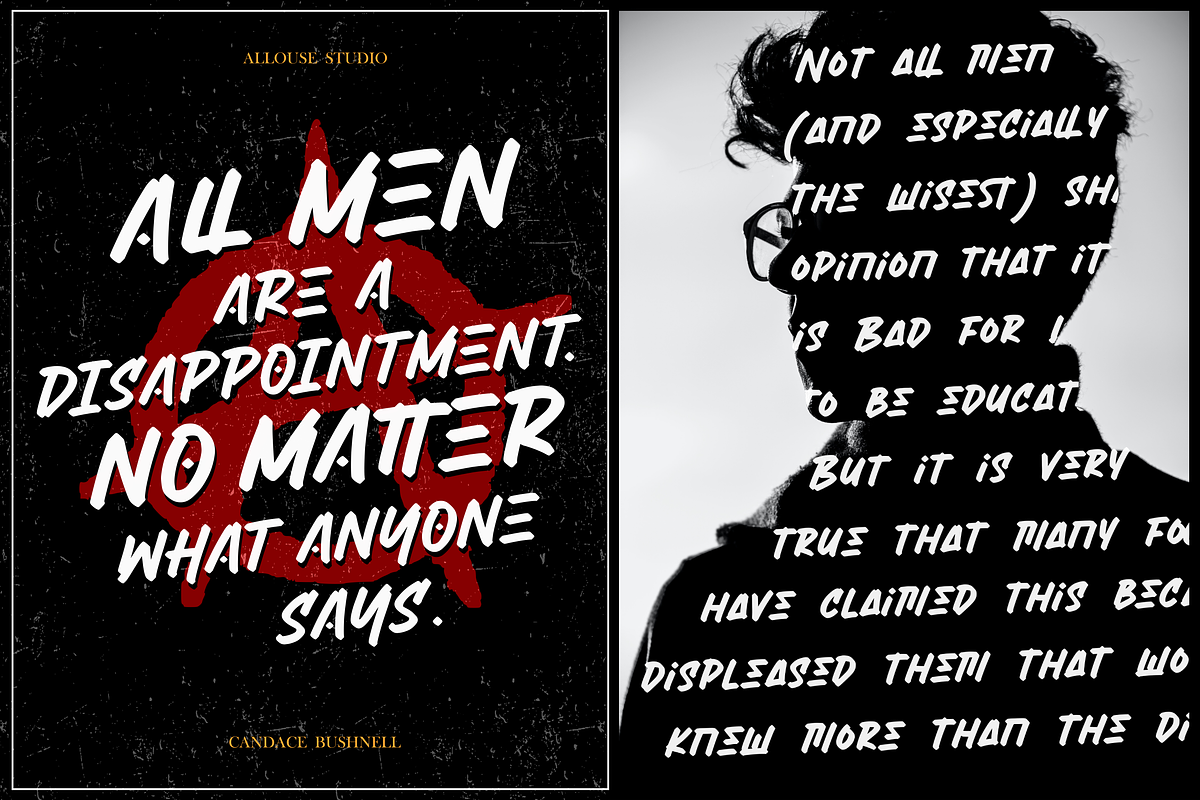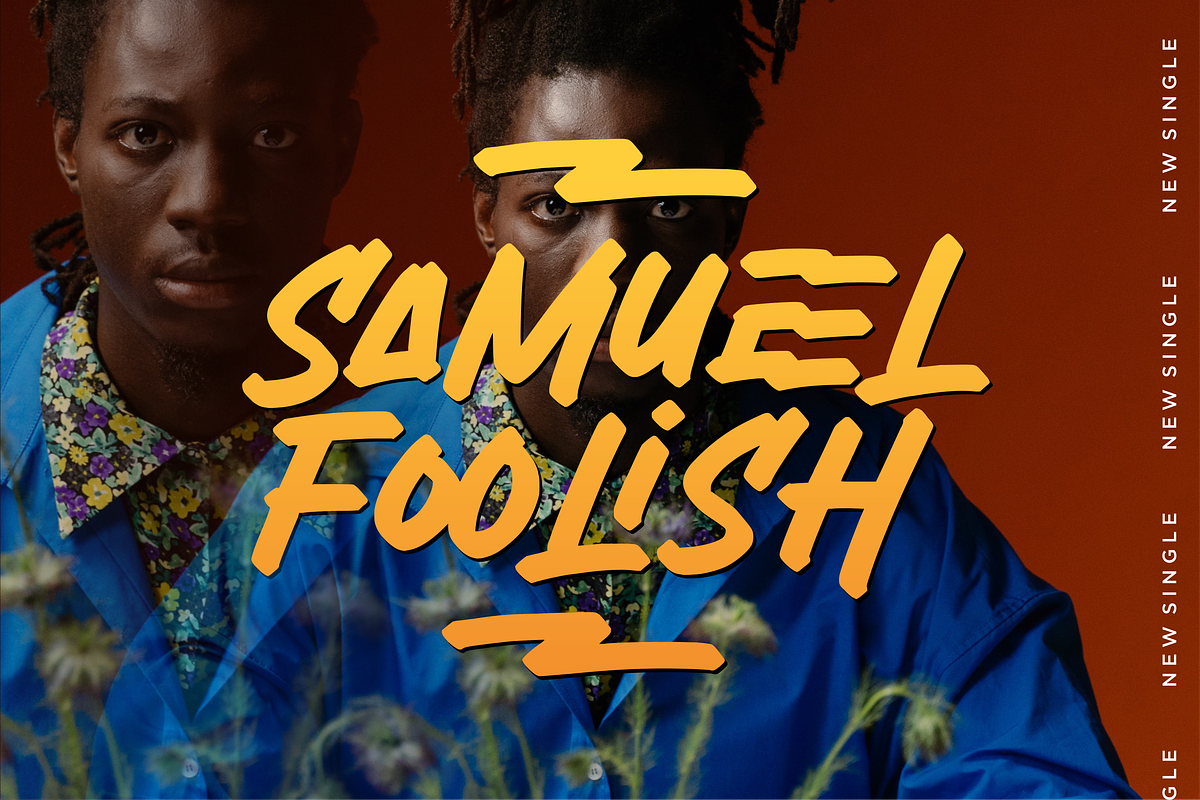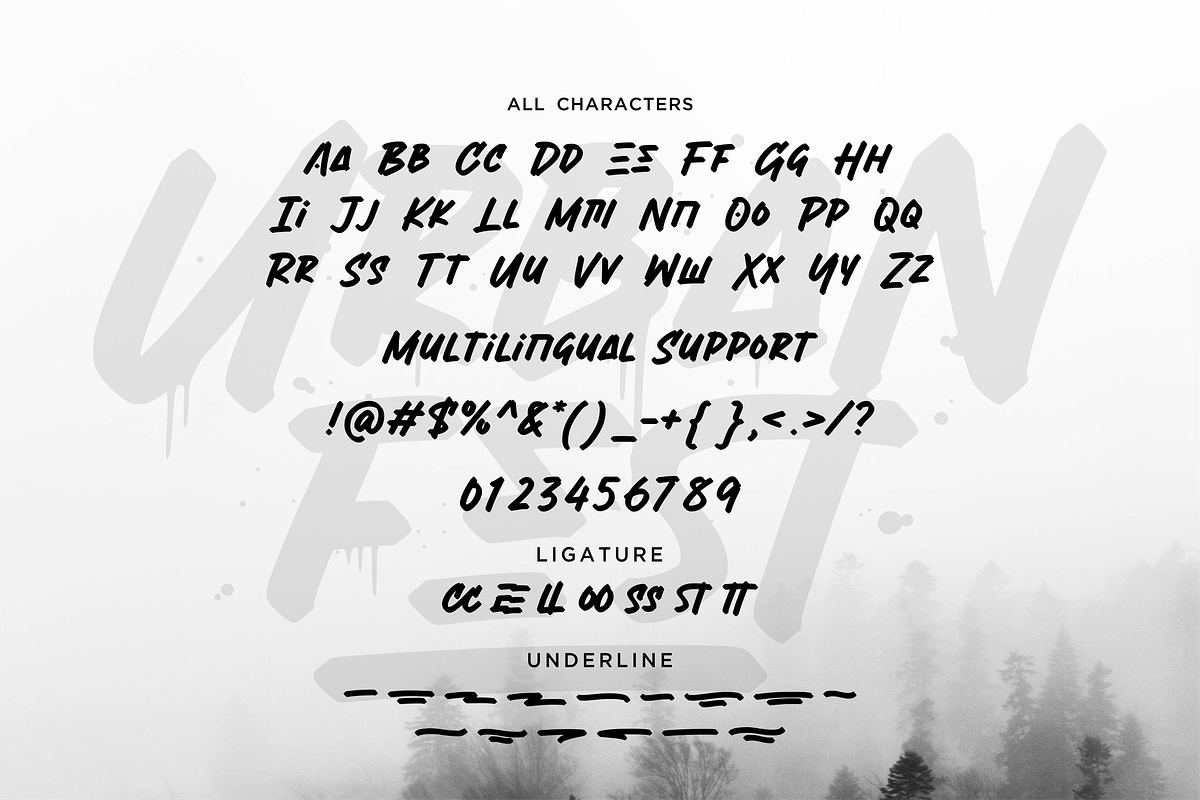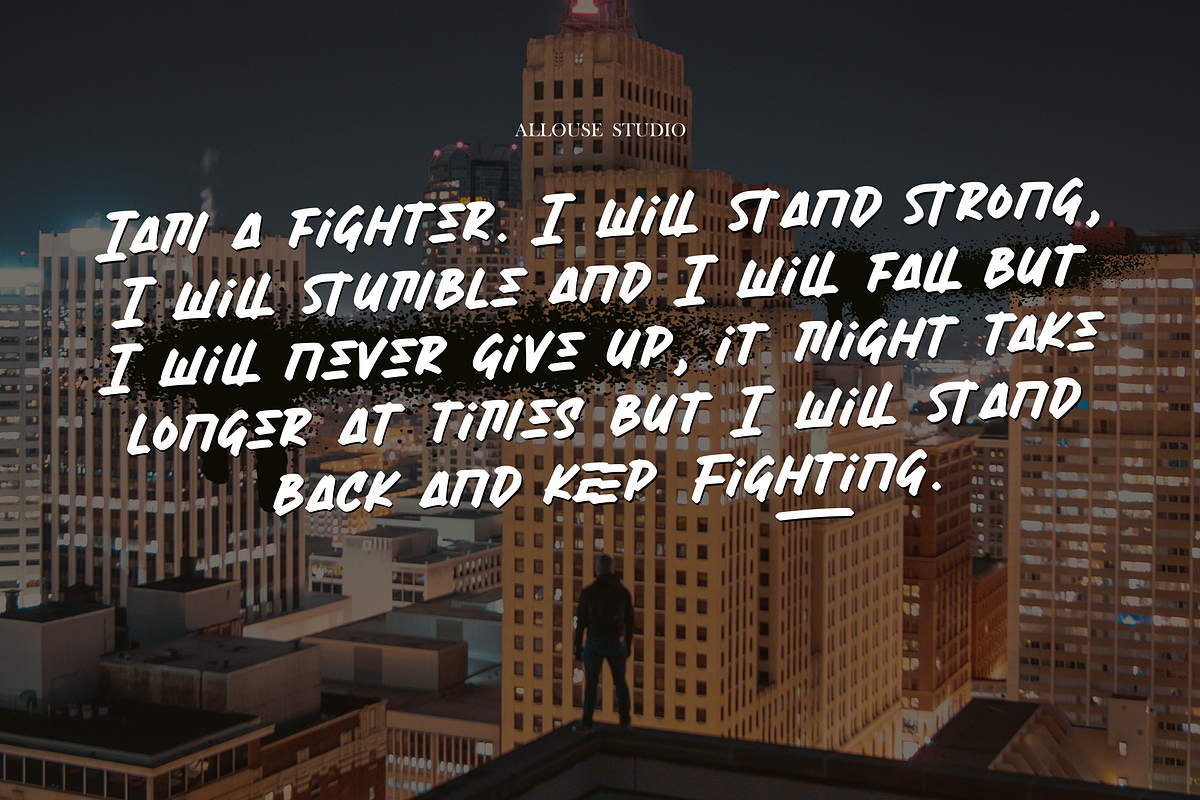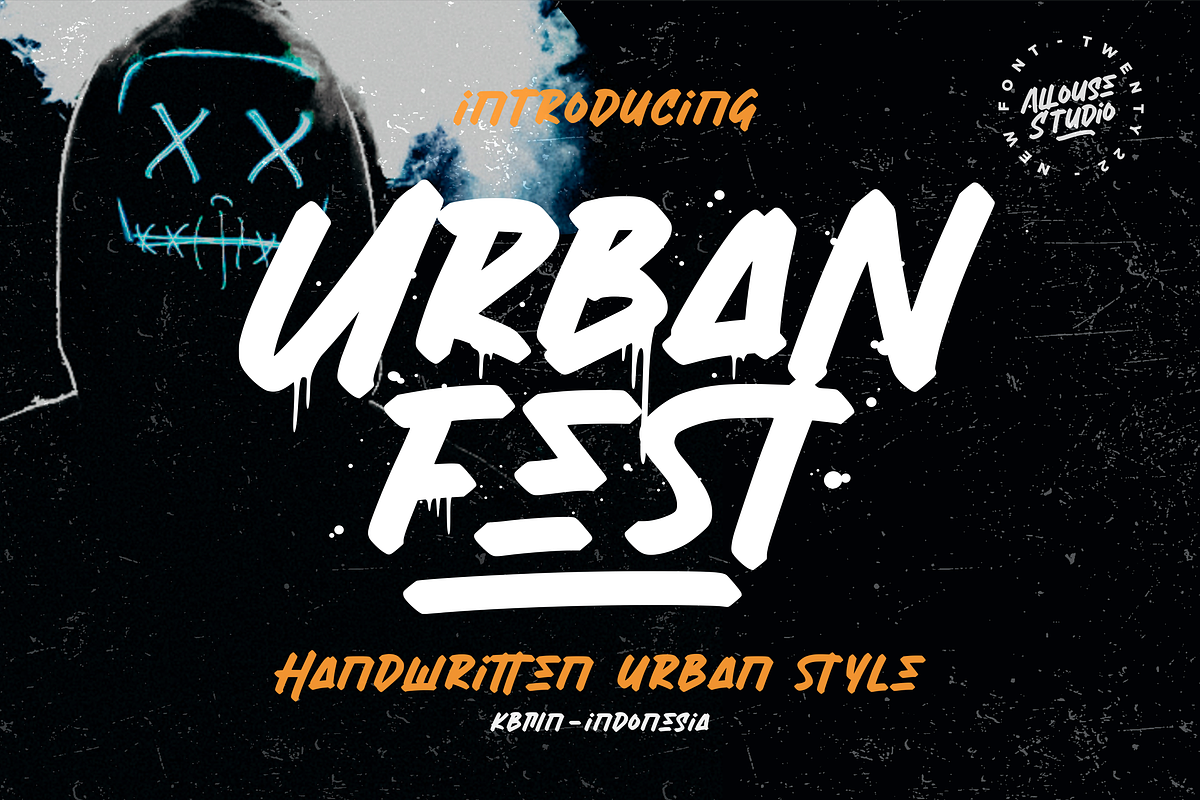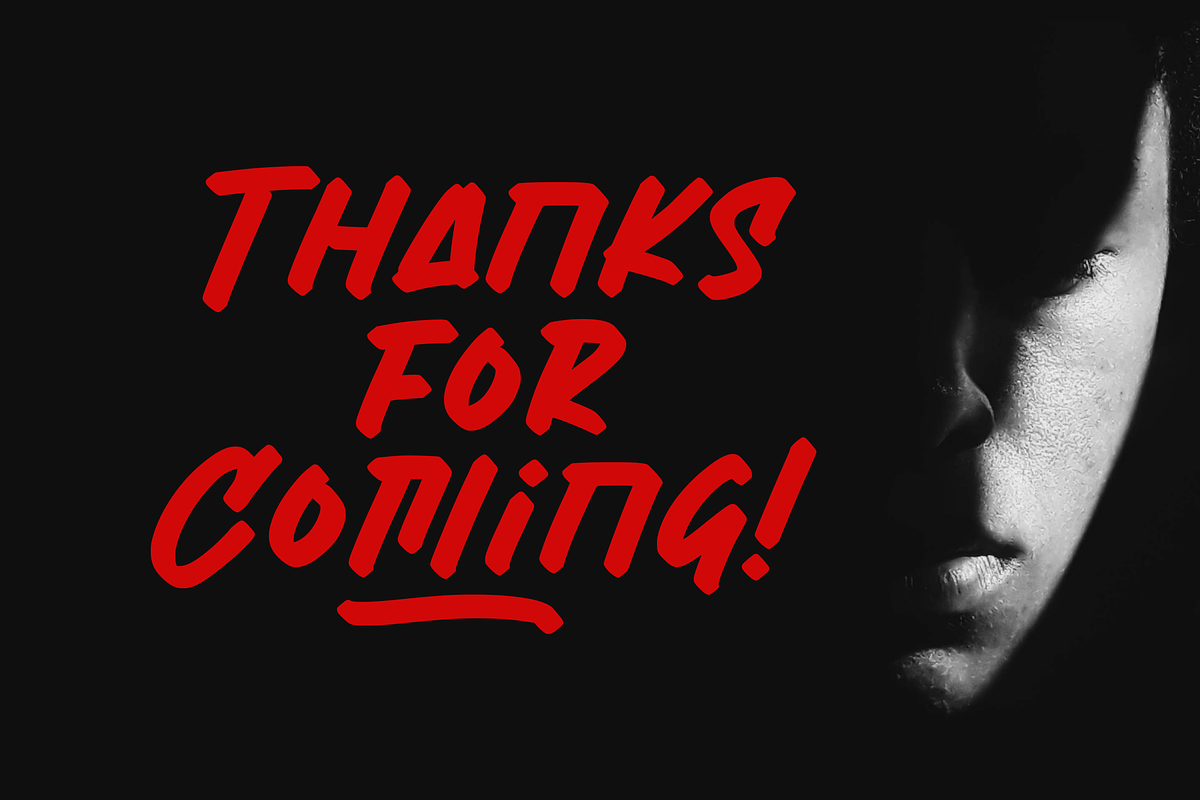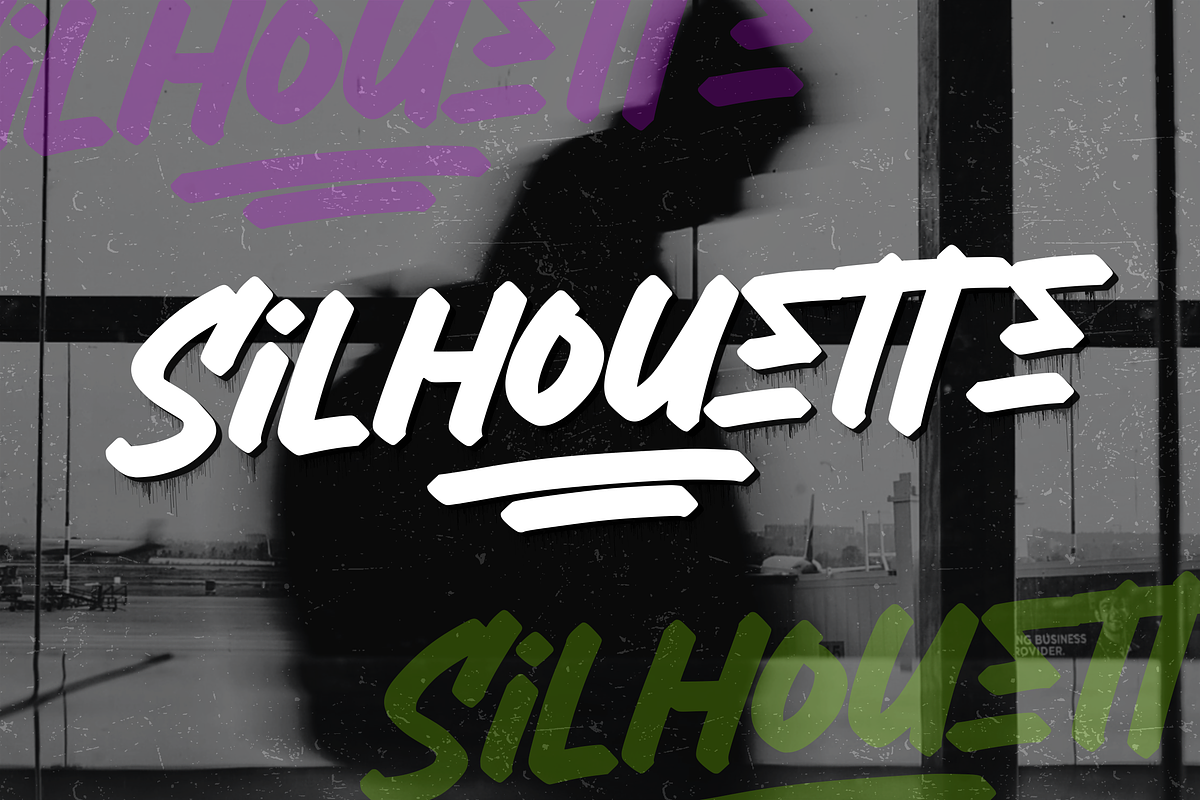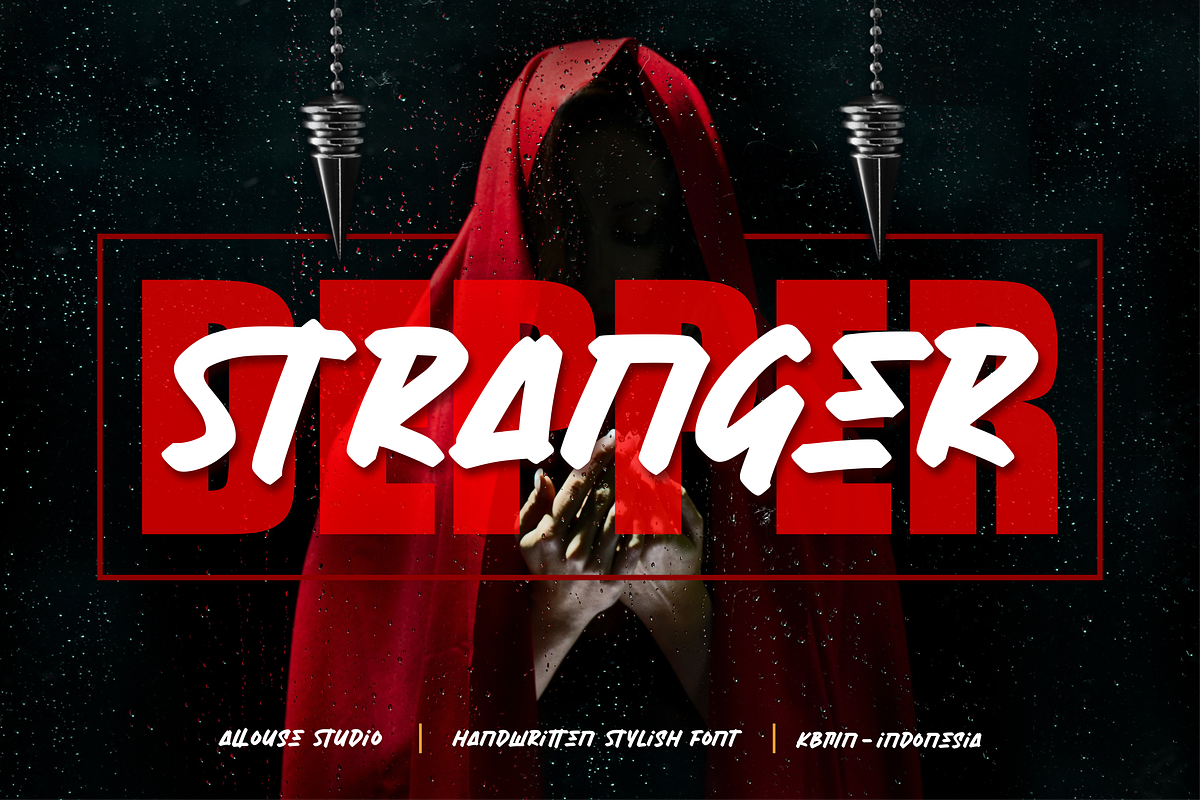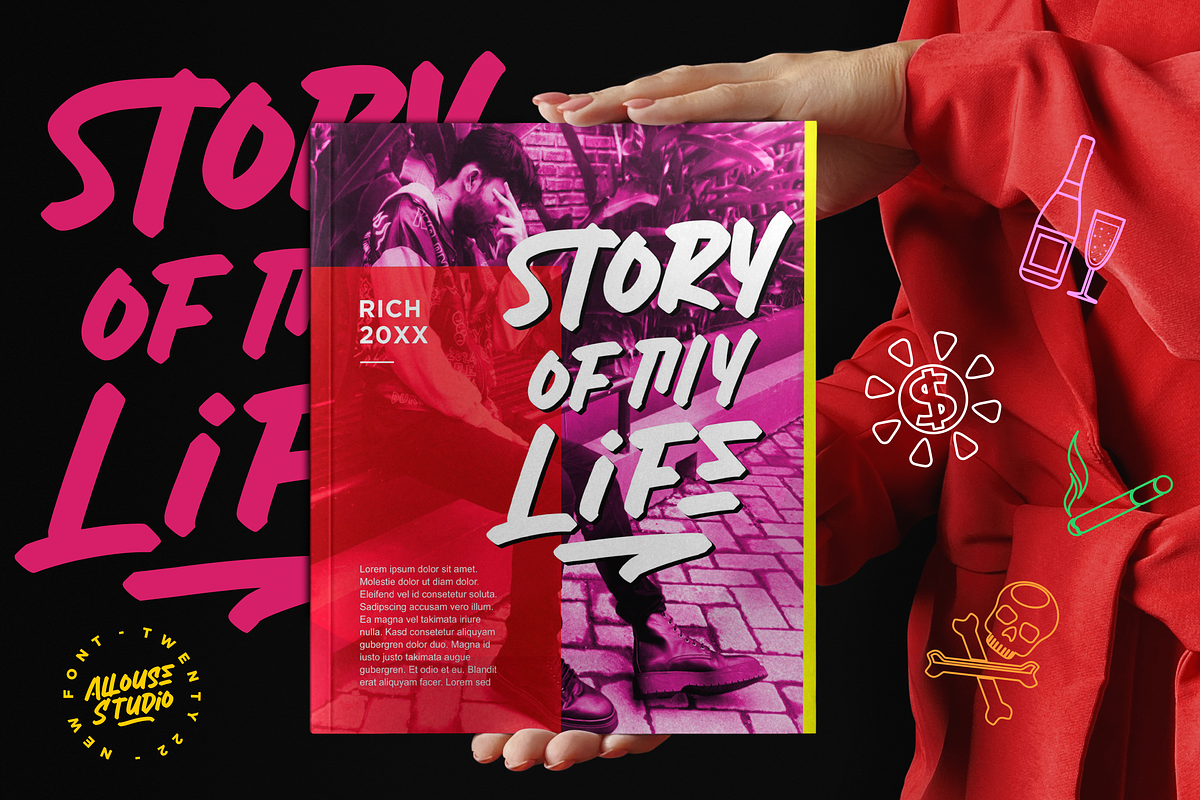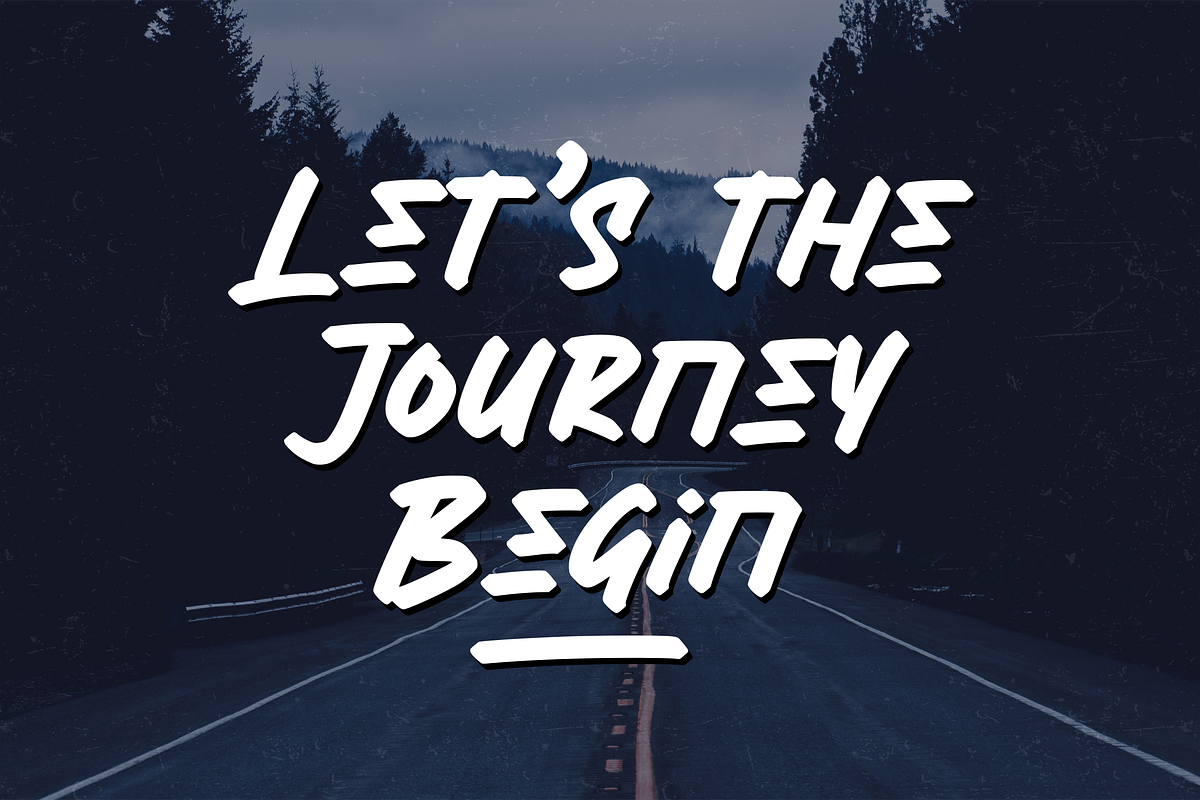
Urban Fest A Handwritten Urban Style
Proudly Presenting, Urban Fest A Handwritten Urban Style Font
Urban Fest is perfect for any titles, logo, product packaging, branding project, megazine, social media, wedding, or just used to express words above the background.
Urban Fest also come with Multi-Lingual Support.